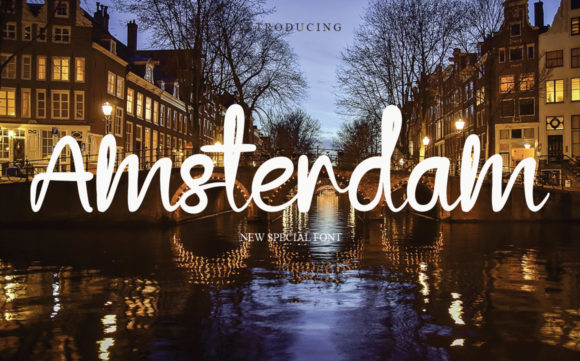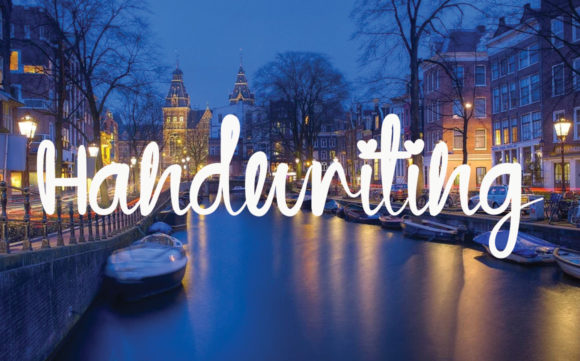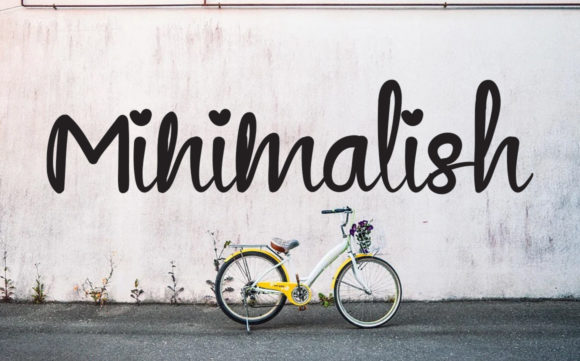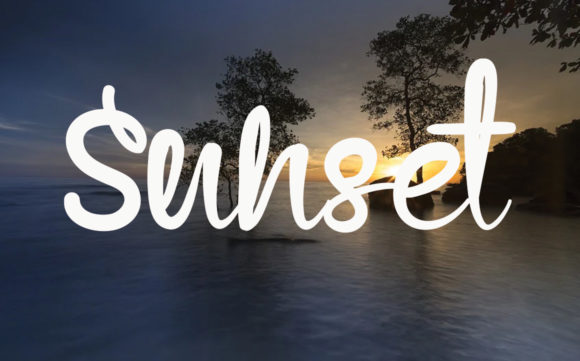
About Amsterdam Font
Amsterdam is a simple, clean, and casual handwritten font that adds a touch of effortless style to your designs. With its versatile and timeless appeal, this font can be easily paired with a wide range of projects, making it a valuable addition to your creative toolkit.
The clean and minimalistic nature of Amsterdam’s letterforms makes it highly readable and accessible. Its simplicity ensures that the focus remains on the message you want to convey, allowing your content to shine without distractions. Whether you’re designing a logo, creating branding materials, or working on a digital or print project, Amsterdam provides a clean and modern aesthetic that exudes a sense of professionalism.
The casual and handwritten look of Amsterdam adds a touch of authenticity and warmth to your designs. It brings a personal and relatable feel, as if each letter were handcrafted with care. This makes it a great choice for various applications, including social media graphics, blog headers, invitations, packaging, and more. The casual vibe of Amsterdam also lends itself well to creating a laid-back and approachable atmosphere in your designs.
One of the strengths of Amsterdam is its versatility. It can be effortlessly matched with other fonts, both serif and sans-serif, to create interesting typographic combinations. You can pair it with a bold font for contrast, or with a delicate script font for a harmonious and cohesive look. The flexibility of Amsterdam allows you to adapt it to different design styles and themes, making it suitable for a wide variety of projects.
Additionally, Amsterdam’s clean and uncluttered letterforms make it ideal for scaling and resizing without losing legibility. Whether you need to use it in large headlines or small body text, Amsterdam maintains its clarity and readability across different sizes and resolutions.
Embrace the simplicity and versatility of Amsterdam and let it elevate your creative ideas. With its clean and casual style, this font will make your designs stand out with a touch of effortless elegance. Add Amsterdam to your font collection and discover how it can enhance a wide range of projects, from branding and marketing materials to social media graphics and beyond.